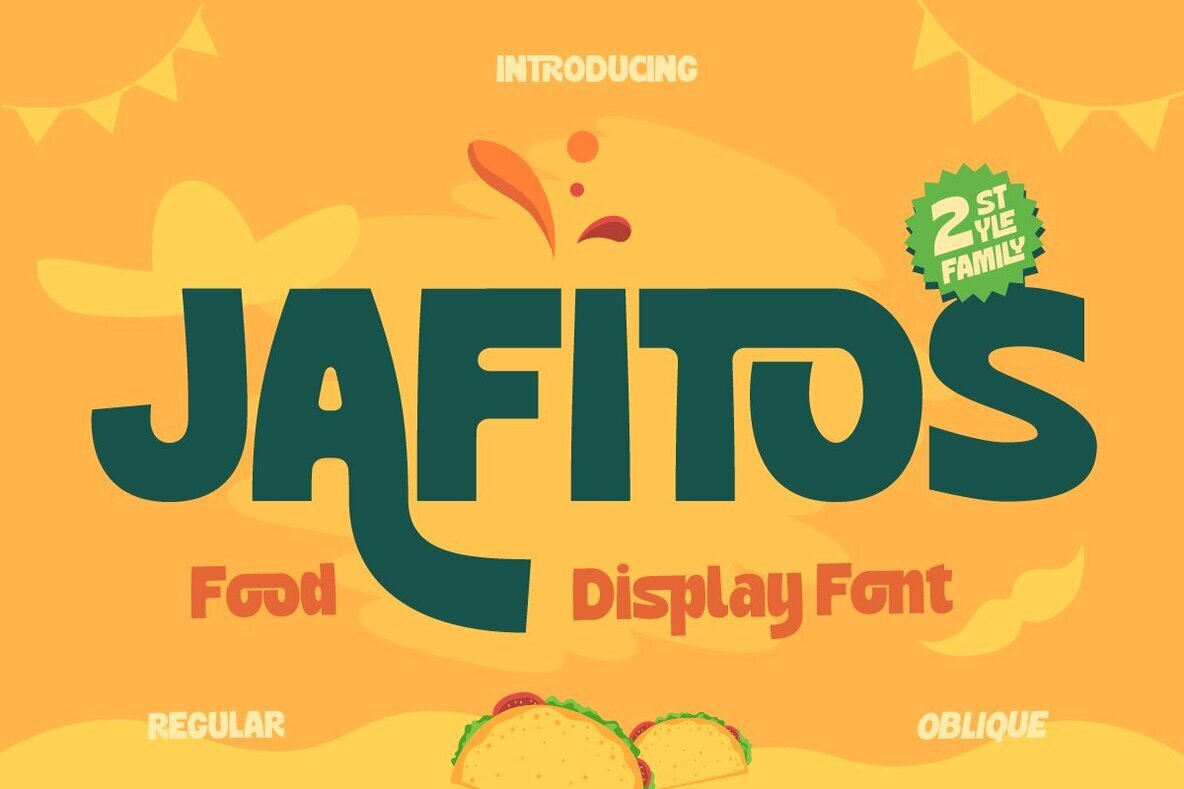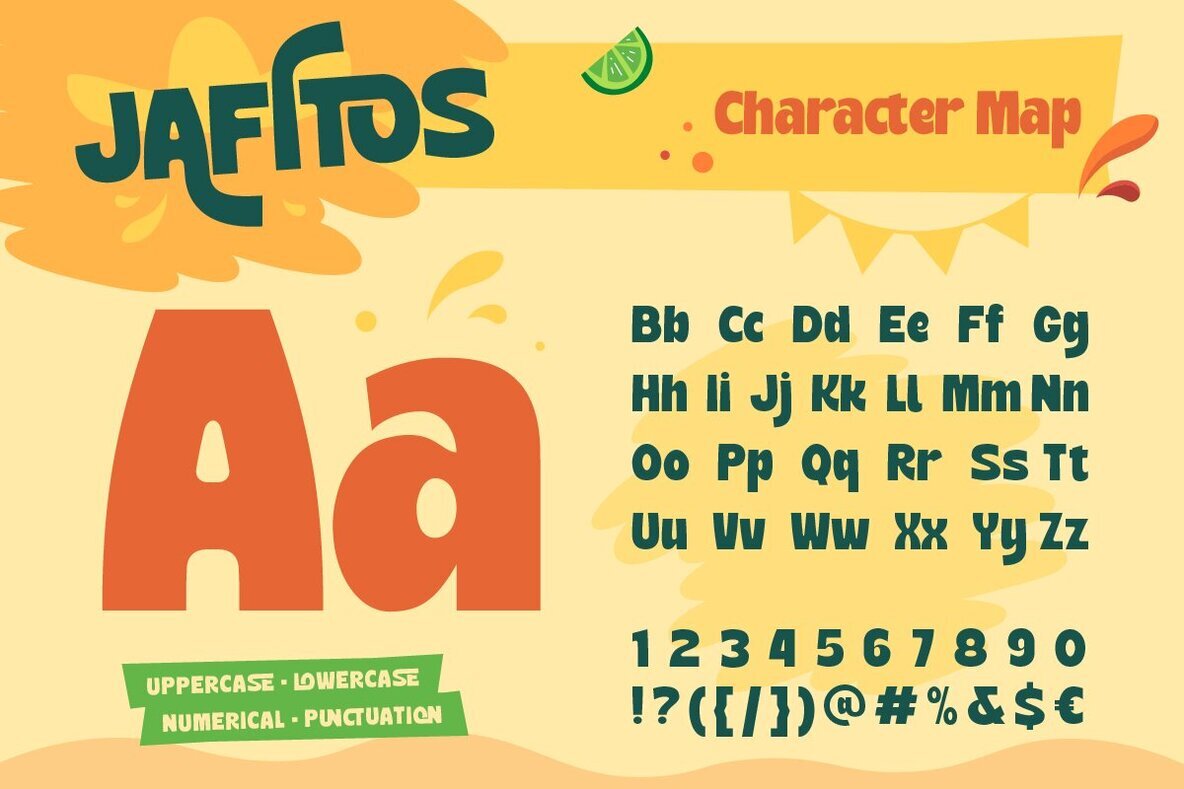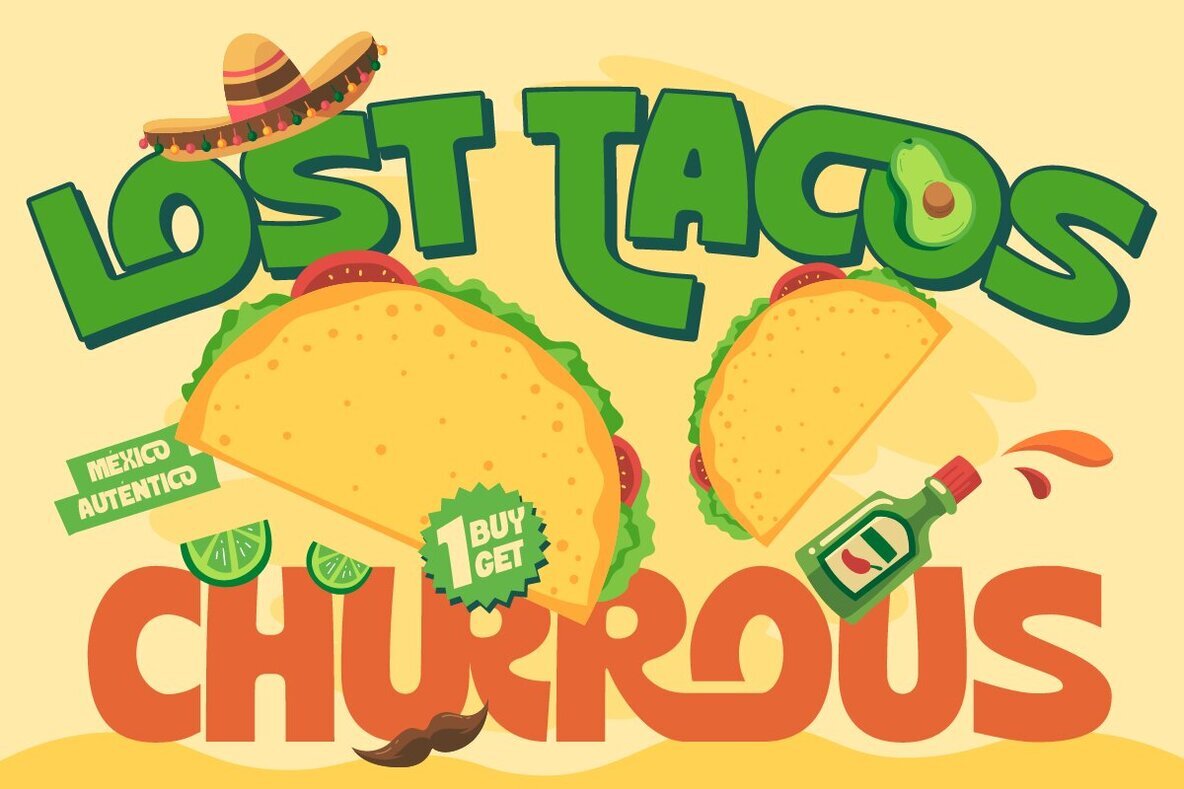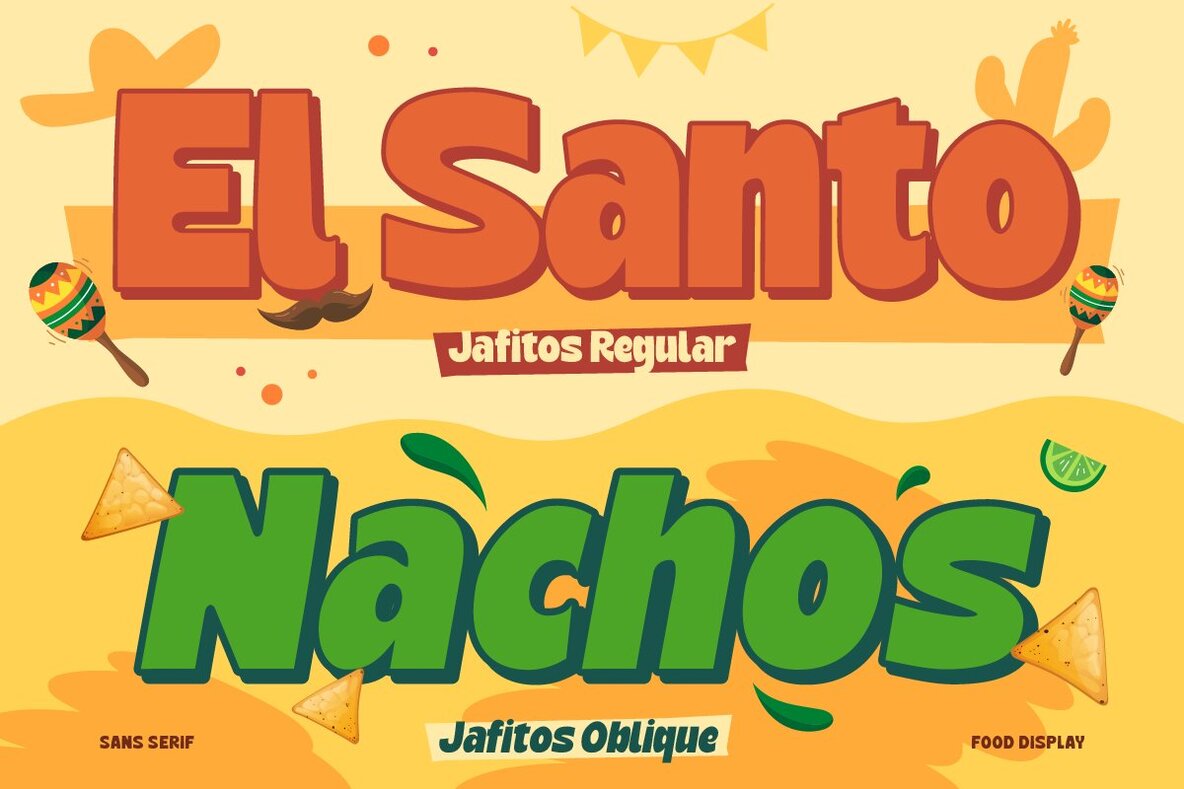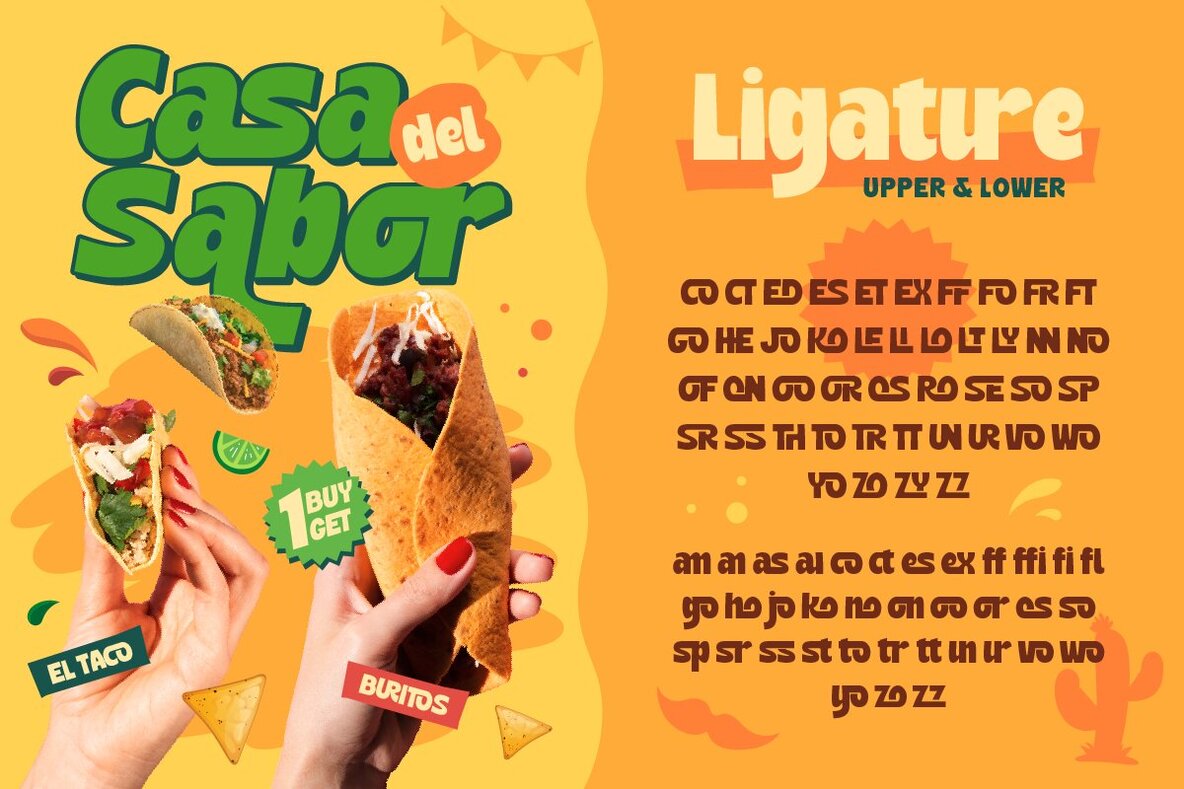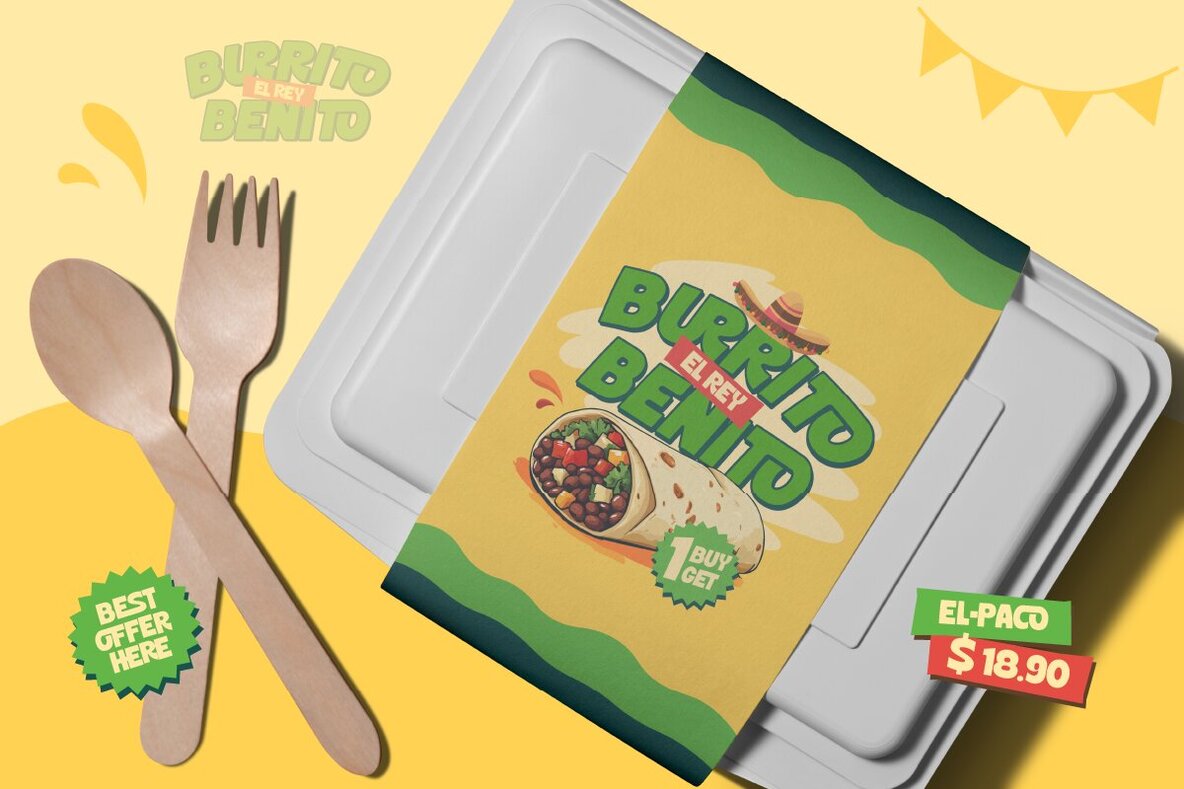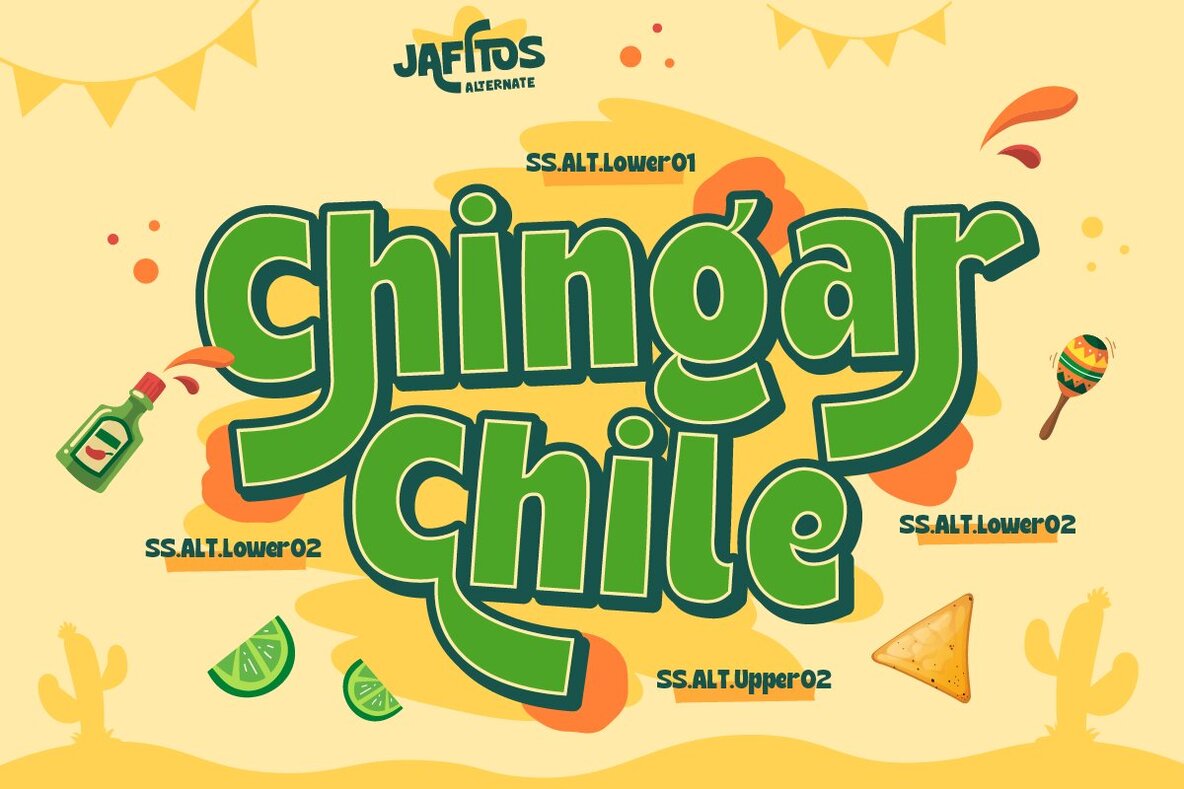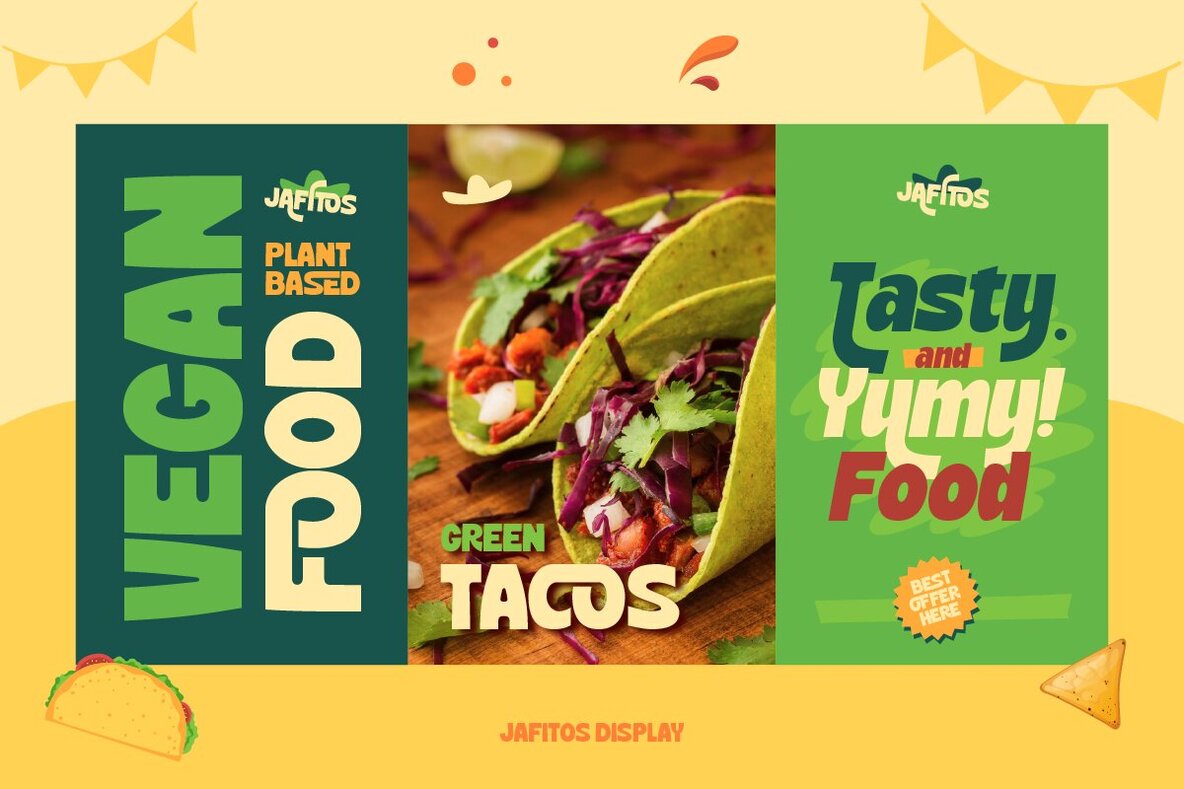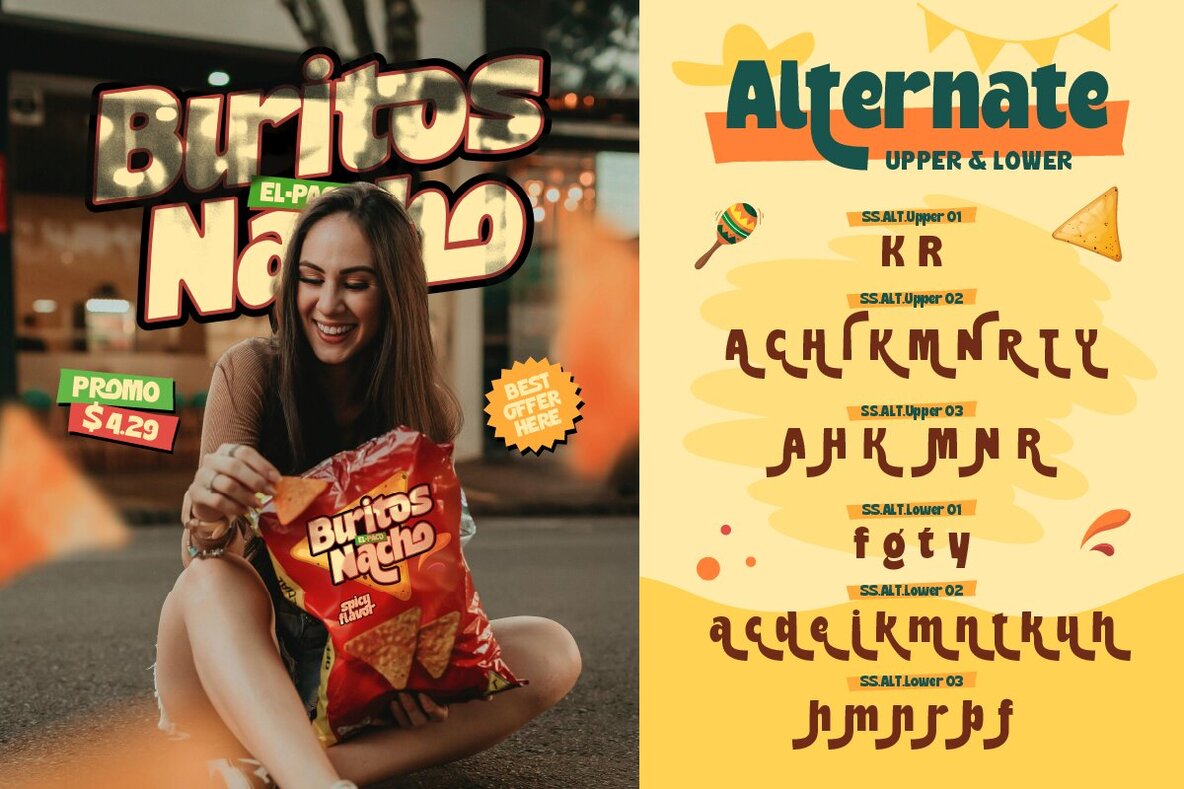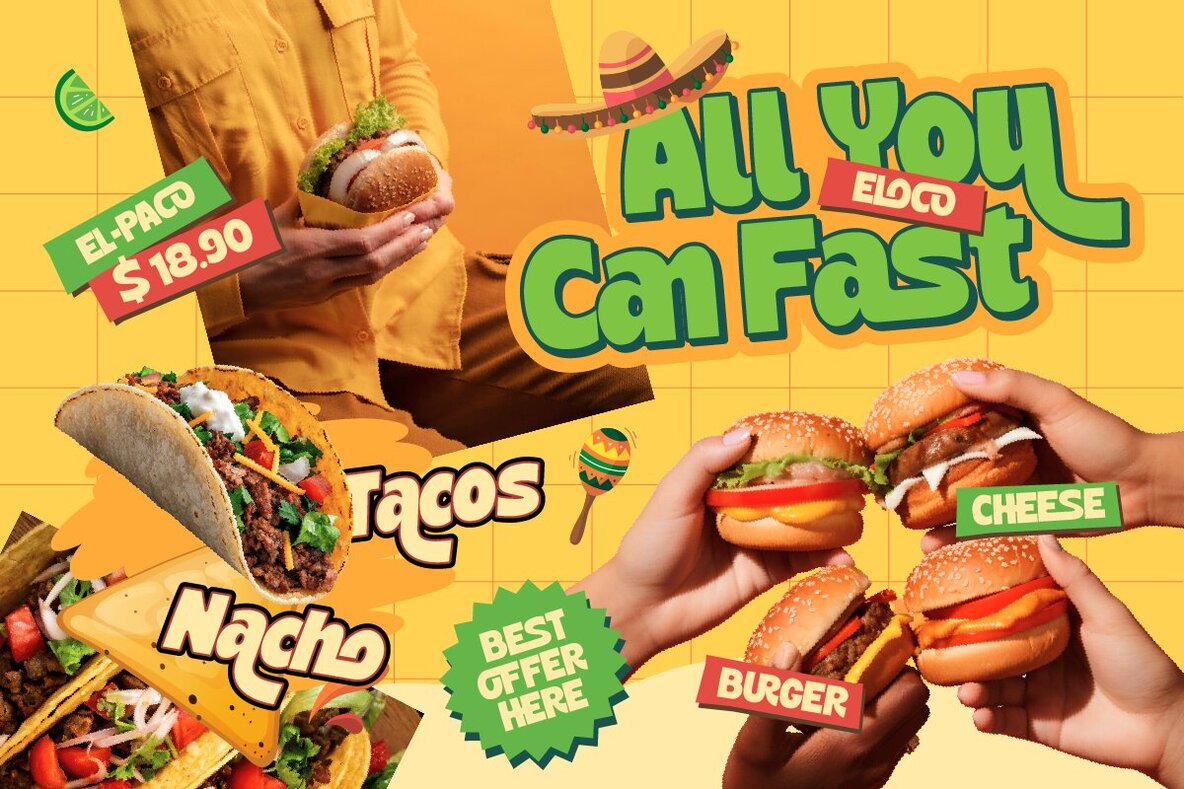
Jafitos Font
Jafitos is a playful and quirky sans-serif display font that infuses a cheerful vibe into any design project. Its bold, lively appearance makes it ideal for an array of applications including branding, packaging, posters, logos, and social media content. Whether designing for a vibrant food brand, a trendy fashion campaign, or eye-catching merchandise, Jafitos provides the perfect blend of fun and professionalism.
This font offers two versatile styles—Regular and Oblique—allowing for dynamic and engaging visual creations. Enhance your designs with its alternate characters and ligatures, which contribute to a unique and expressive text presentation. The font includes a comprehensive A-Z set in both uppercase and lowercase, along with numbers, punctuation marks, and multilingual support. The Jafitos Character Map further ensures a complete design toolkit, making it an excellent choice for all your creative needs.